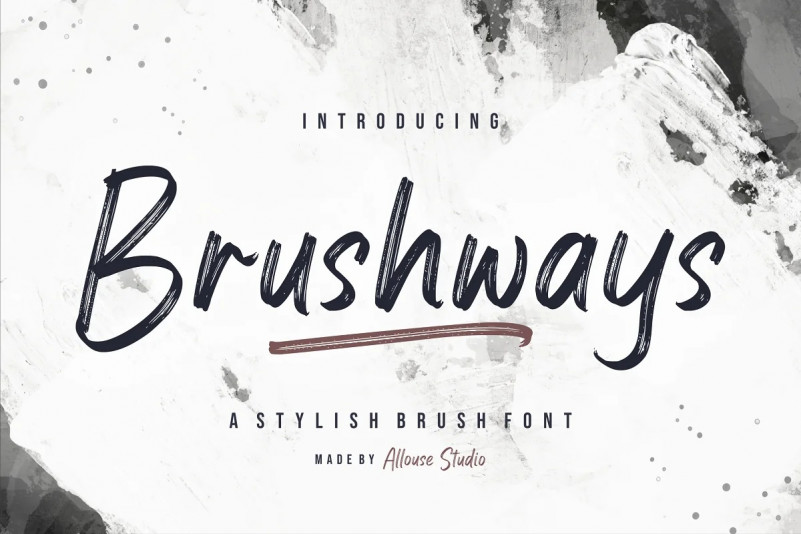
Brushways Font
Brushways Brush Font A Stylish Brush Font.
Brushways is perfect for any titles, logo, product packaging, branding project, megazine, social media, wedding, or just used to express words above the background.
Brushways also come with Multi-Lingual Support.